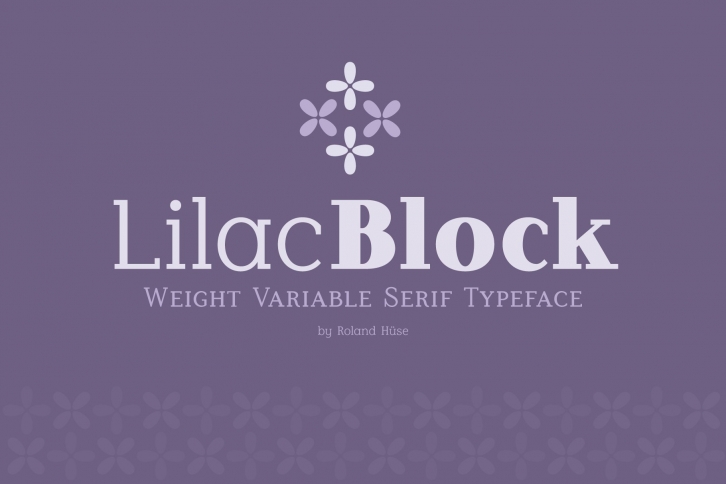
Lilac Block Weight Variable is a trendy and unique font with an authentic style. It was designed by Roland Huse and it's a great choice for creative people who need such a font. It was released on October 11, 2020 and the file size is 3.40 MB. Lilac Block Weight Variable will add an organic vibe to any design idea!